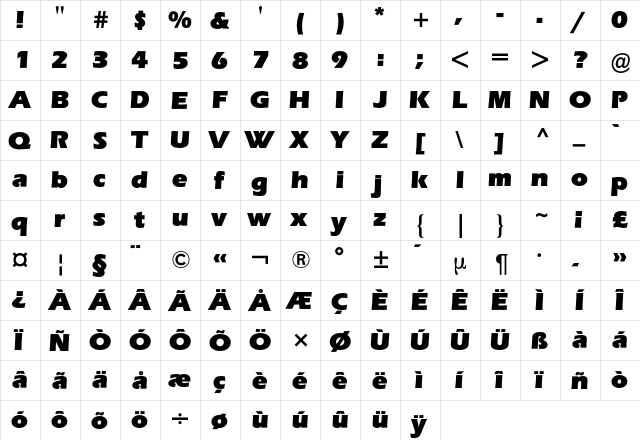
Eras BQ Regular
Design Context for Eras BQ Typeface
Eras BQ is a composed and adaptable typeface that performs quietly and consistently across a wide range of design contexts.